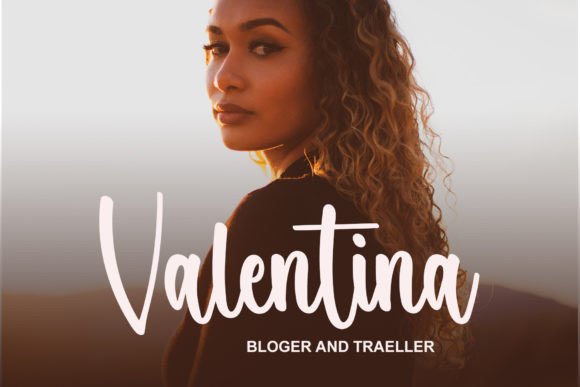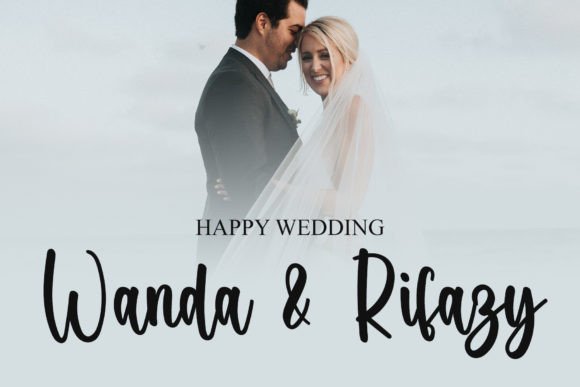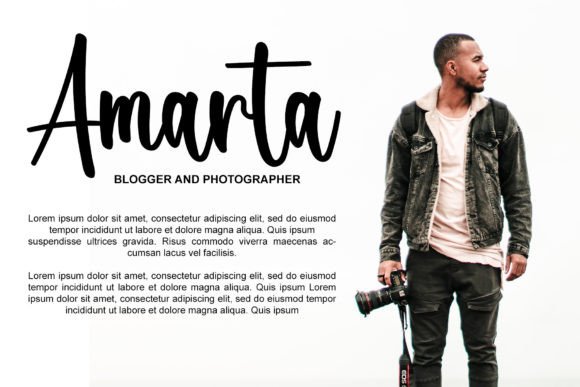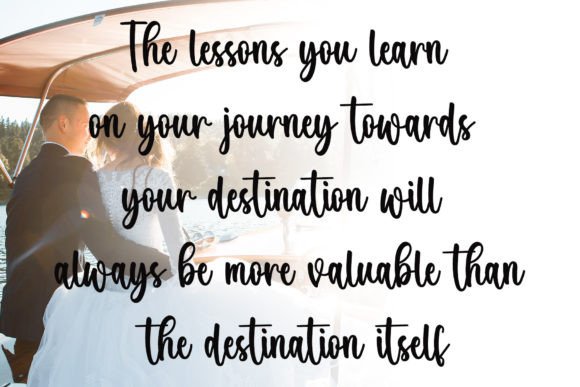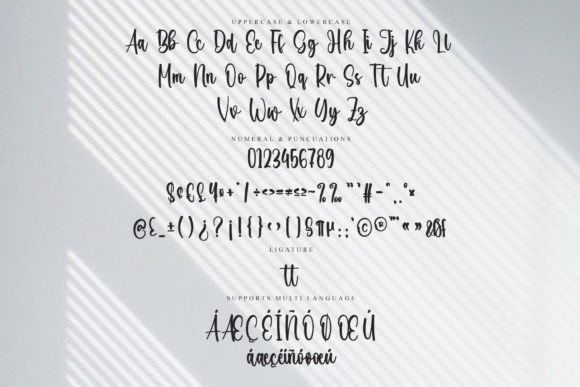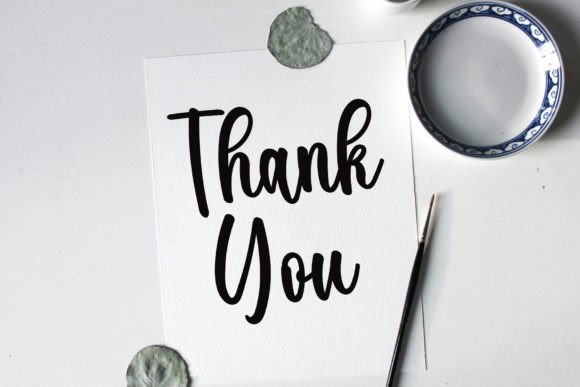
Introduction to Shawty Font
Have you ever stared at a blank canvas, trying to conjure up the perfect design for a project, only to be met with a sea of uninspiring fonts? It’s a common creative struggle, but one that can be easily solved with the right design resource. Enter the Shawty Font, a stylish and dainty script font that’s sure to bring a touch of elegance to any project.
As a designer, you know the importance of having a high-quality font at your fingertips. The Shawty Font is a valuable addition to any design arsenal, offering a range of creative possibilities for logos, branding projects, labels, and more. With its PUA encoding, accessing all of the glyphs and swashes is a breeze, making it perfect for those special touches that elevate a design from good to great.
Shawty Font
- Unique, modern script font perfect for adding a touch of elegance
- Includes a range of ligatures and swashes for added flair
- Designed with a clean and minimalist aesthetic, suitable for various design applications
Honest Review: Shawty Font
As a designer, I’m always on the lookout for high-quality design resources that can elevate my creative projects. Recently, I had the chance to experiment with the Shawty Font, and here’s my honest review.
- ✨ The font’s unique, playful style adds a fun touch to any design project.
- ✨ The transparent background makes it easy to layer with other design elements.
- ⚠️ The font may not be suitable for formal or professional projects, as its playful style can come across as unprofessional.
Overall, I’m impressed with the Shawty Font’s potential to add a creative spark to my design projects. While it may have some limitations, its unique style and free download make it a great resource for designers looking to experiment with new ideas.
Tips for Getting the Most Out of Shawty Font
For the best results, use Shawty Font on a high-quality design resource with a clear, transparent background. Experiment with different font sizes and colors to add visual interest to your project. You can also use Shawty Font as a creative project starter, pairing it with other free design resources for a unique look.
Shawty Font is perfect for social media graphics, flyers, posters, and other marketing materials. You can also use it in presentations, reports, and other business documents to add a touch of personality and style.